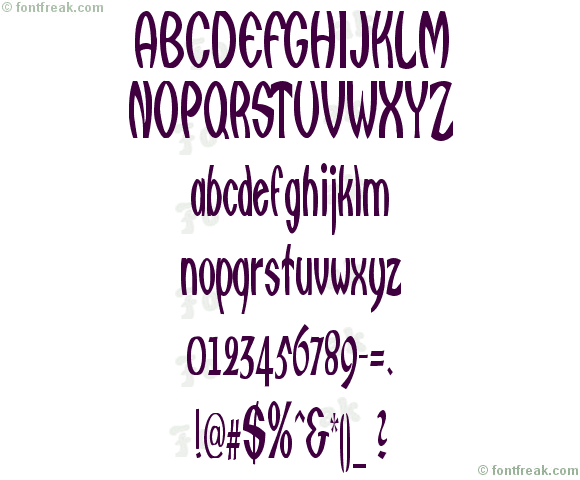
Qarats
About Qarats
Qarats, designed by Rafi, is a unique display font that captures attention with its artistic flair. This freeware font is perfect for those seeking a creative touch without the constraints of licensing fees. The visual characteristics of Qarats are striking; it features a playful stroke weight that varies throughout the characters, adding an element of dynamism. The contrast between thick and thin strokes enhances its visual appeal, while the generous spacing between letters ensures readability, making it suitable for various design applications.
This font excels in several specific use cases. For instance, it is an excellent choice for wedding invitations, where its whimsical nature can convey a sense of joy and celebration. Additionally, Qarats works wonderfully on movie posters, drawing viewers in with its eye-catching design. Restaurant menus can also benefit from this font, as it adds a touch of sophistication while remaining approachable. Furthermore, content creators looking to enhance their branding will find Qarats to be a valuable asset, allowing them to stand out in a crowded digital space.
Targeting graphic designers, small business owners, and content creators, Qarats provides a versatile option for anyone looking to elevate their work. Its playful yet sophisticated design allows for a wide range of applications, making it a must-have for those in creative fields.
What truly sets the Qarats font apart is its distinctive character and versatility. With its artistic nuances and readability, it invites users to explore new creative avenues. By opting for a Qarats font free download, designers can incorporate this eye-catching typeface into their projects, ensuring their work remains memorable and engaging.